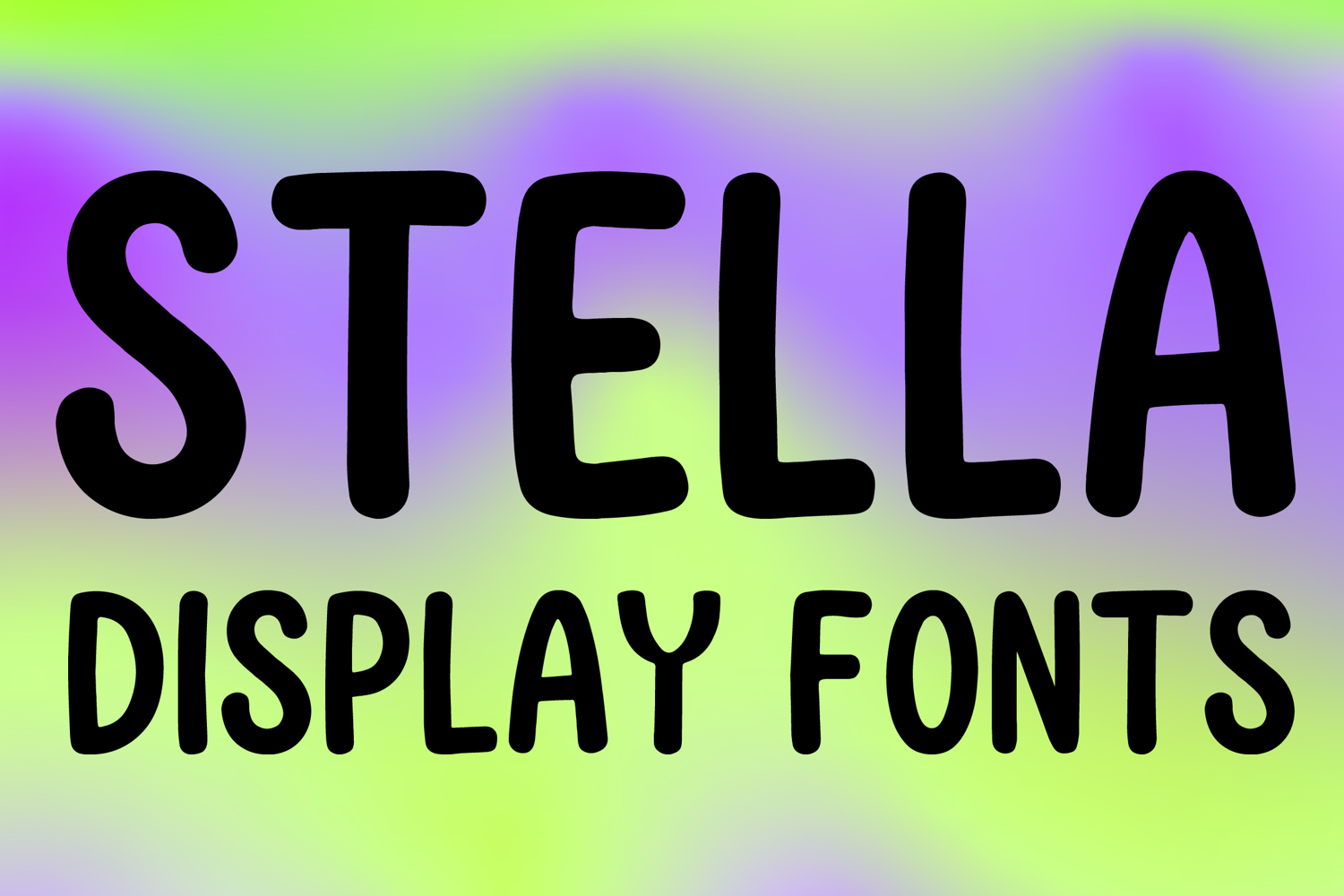
STELLA
STELLA is a playful display font with a bold hand-drawn style and soft modern character. Its rounded uppercase letterforms, smooth curves, and friendly proportions create a cheerful, clean, and eye-catching look. Designed with uppercase letters A–Z and numbers 0–9, STELLA is perfect for logos, branding, posters, packaging, social media graphics, and creative projects that need a fun and memorable statement.